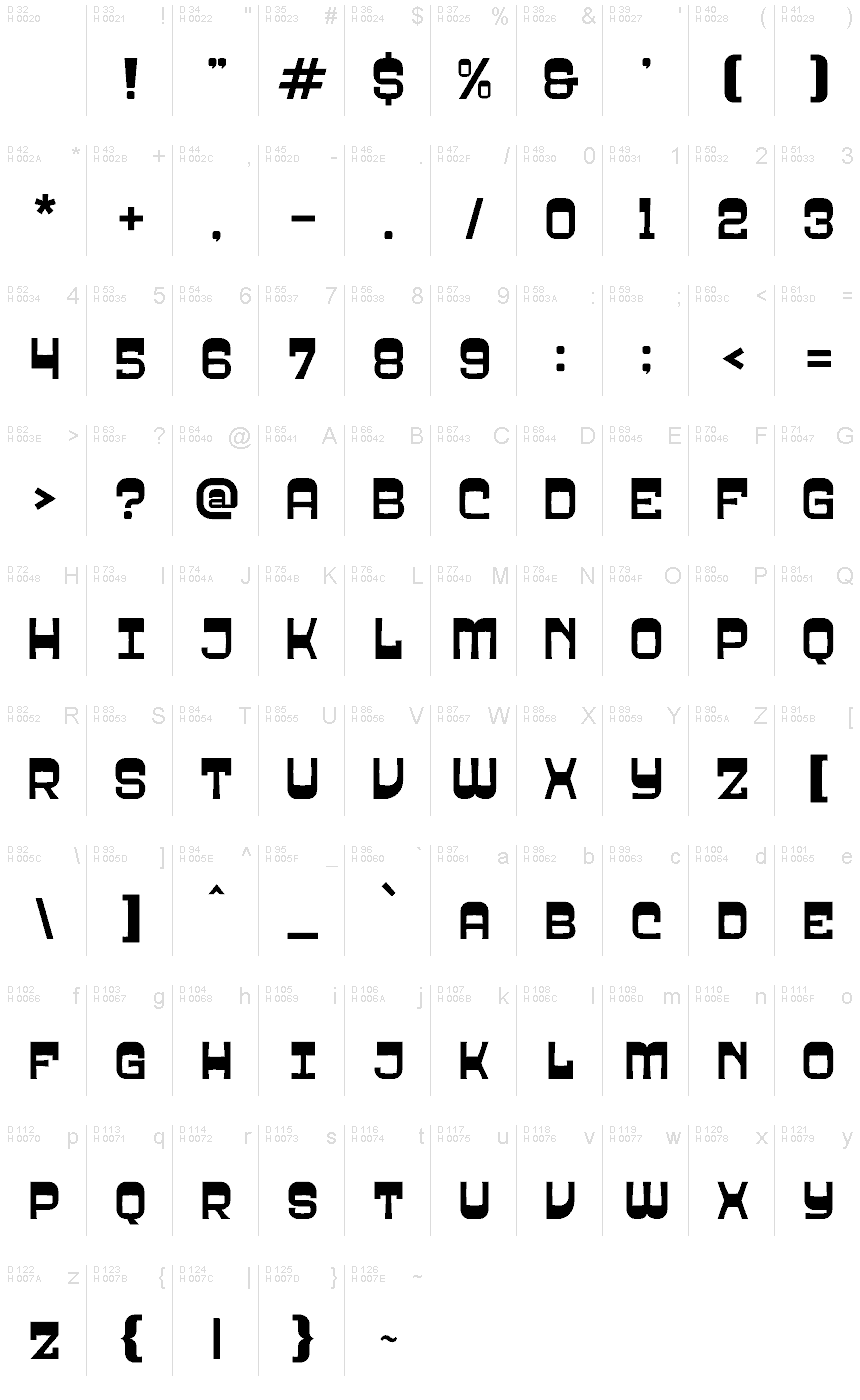
SHALBY
Shalby font by Storytype Studio is a distinctive design with architectural influences and a modernist feel. This groovy display font is assertive with its eye-catching geometric look created specifically for branding designs, marketing, and social media content. Its smooth lines and unusual style make it both aesthetic and memorable for its viewers.